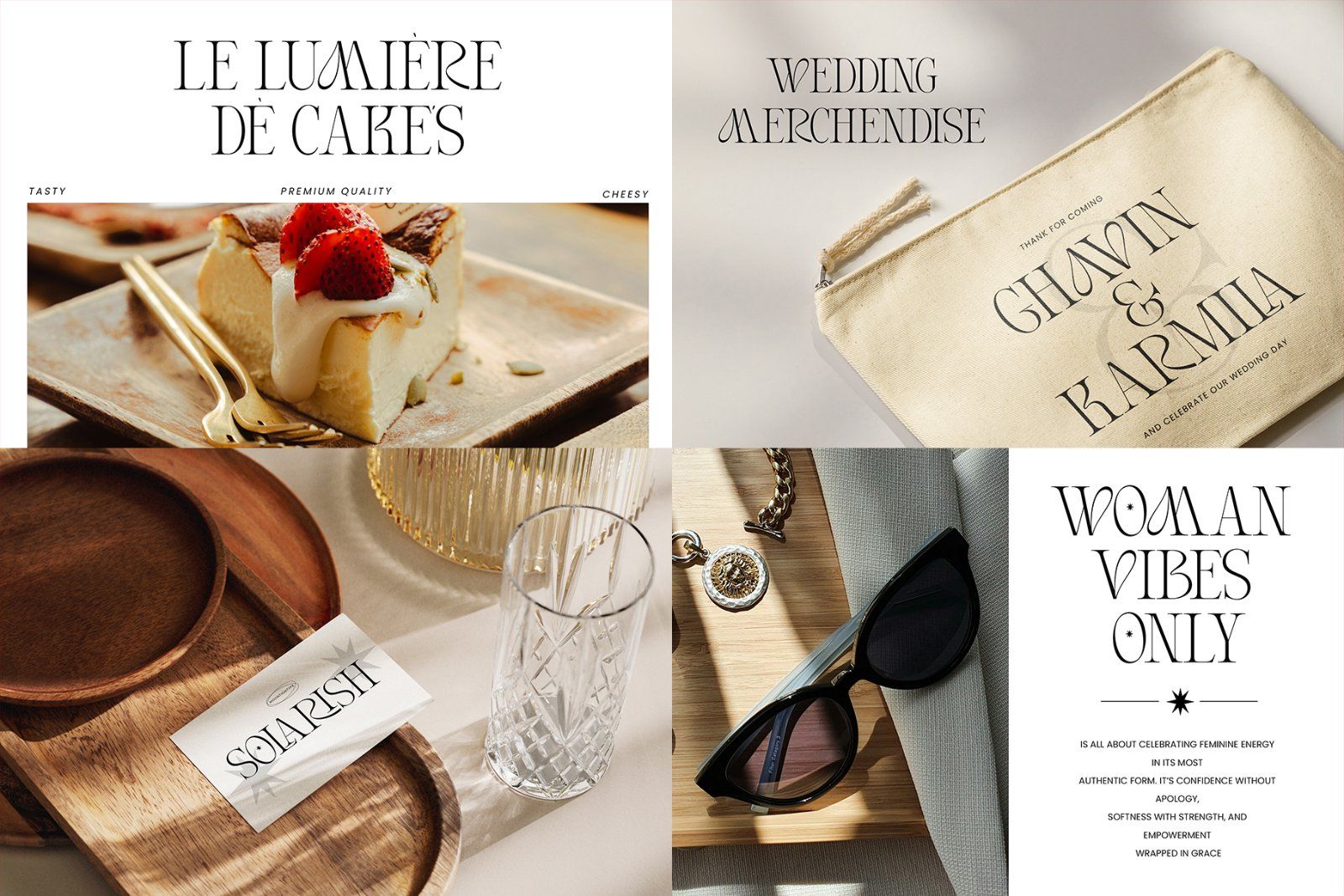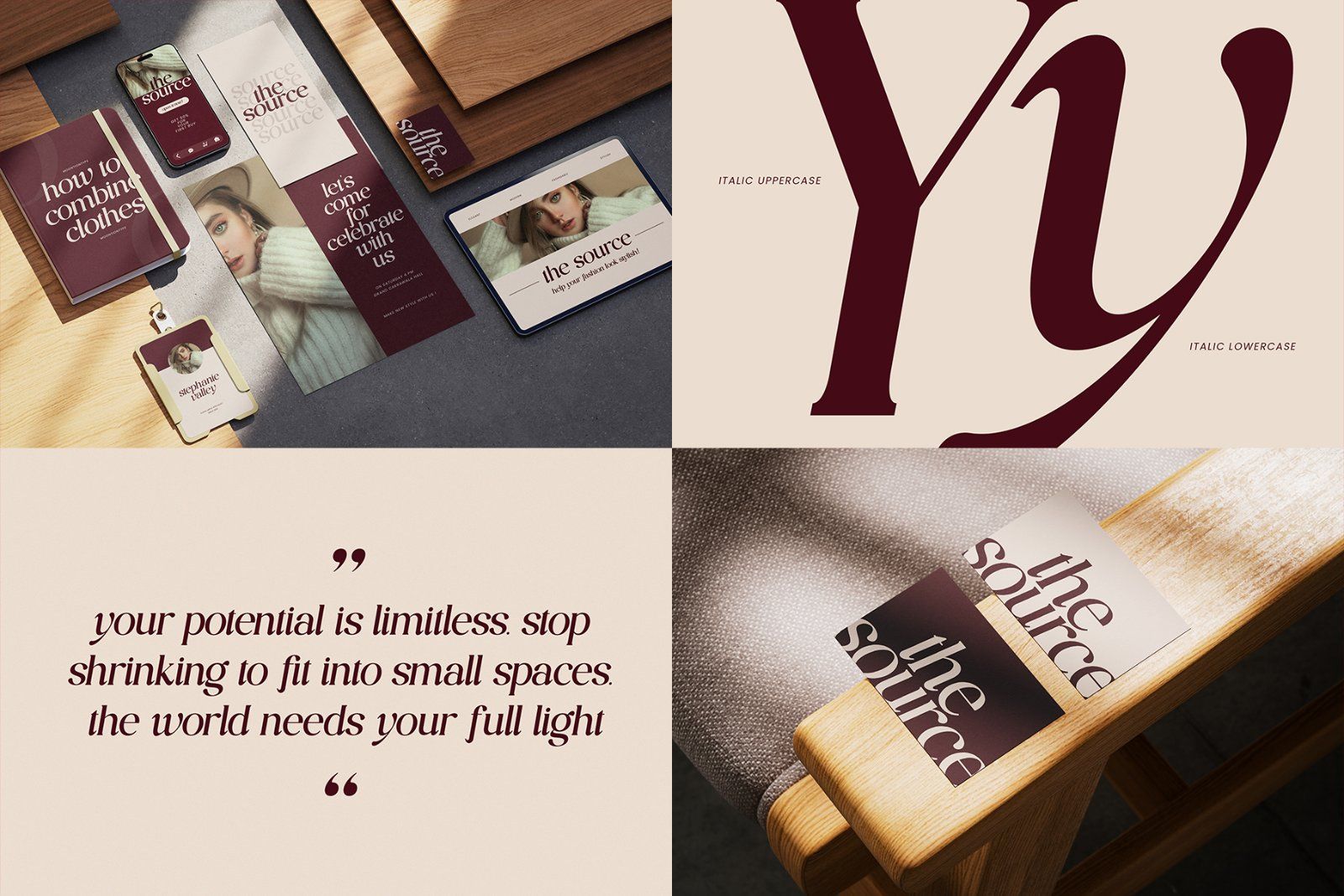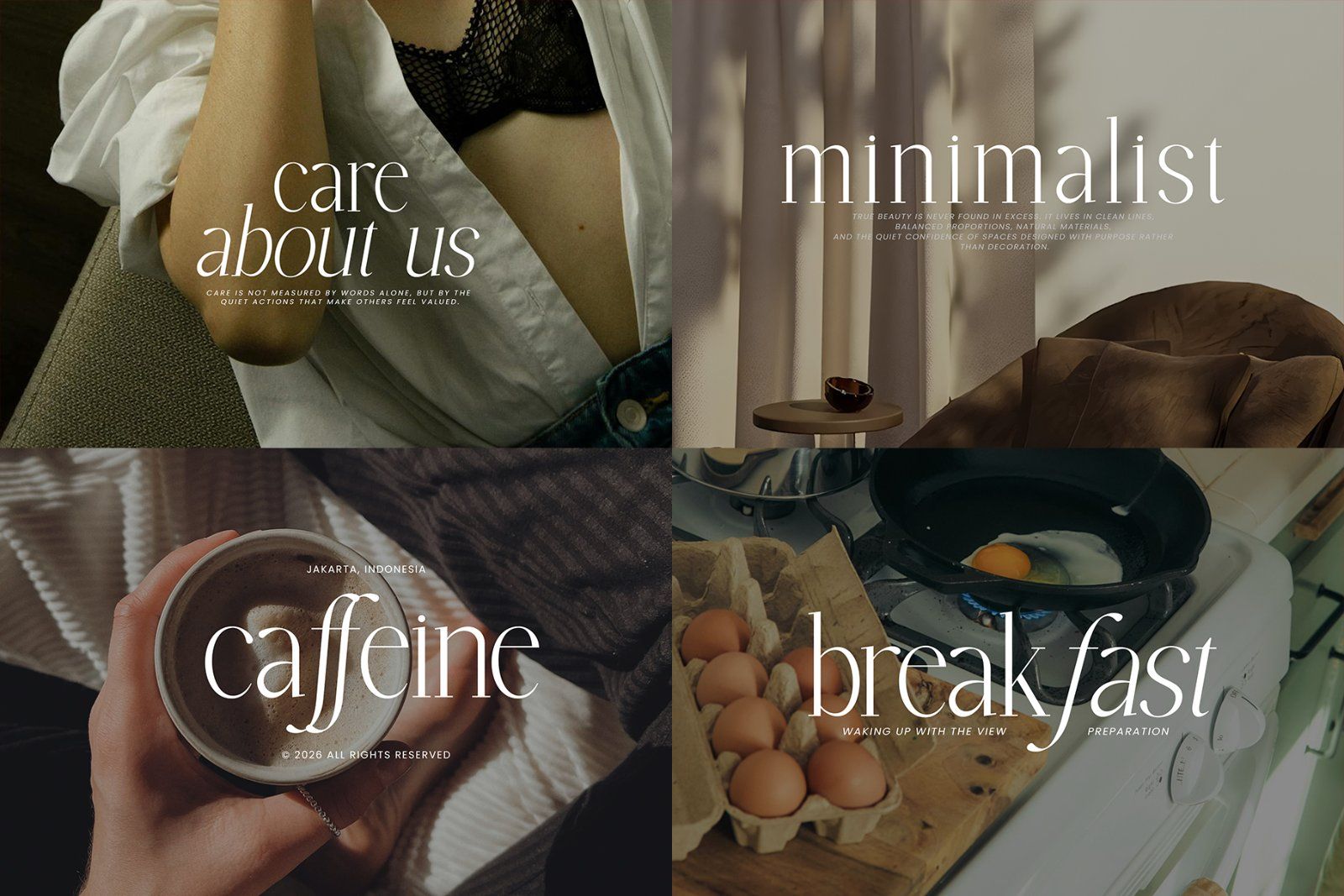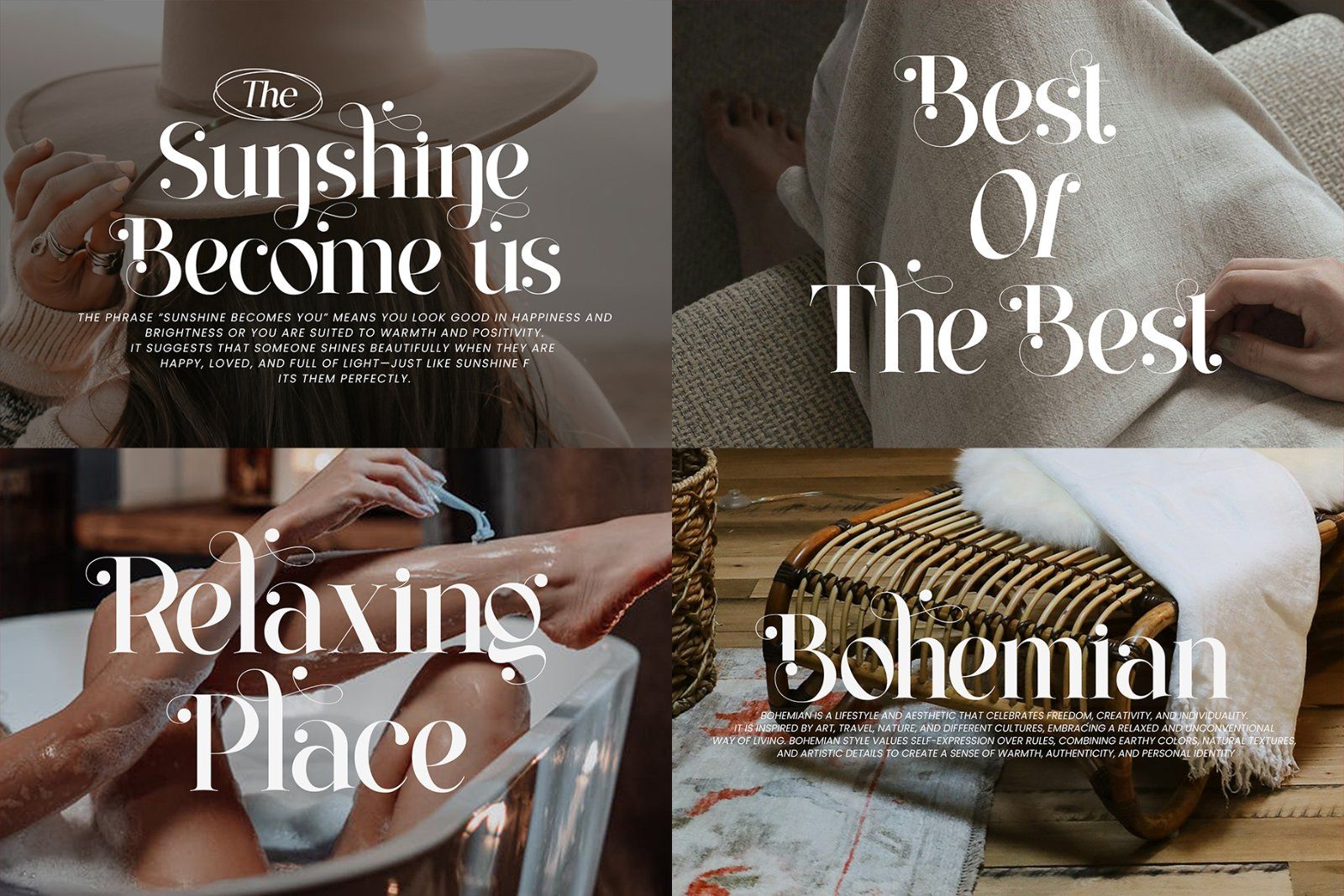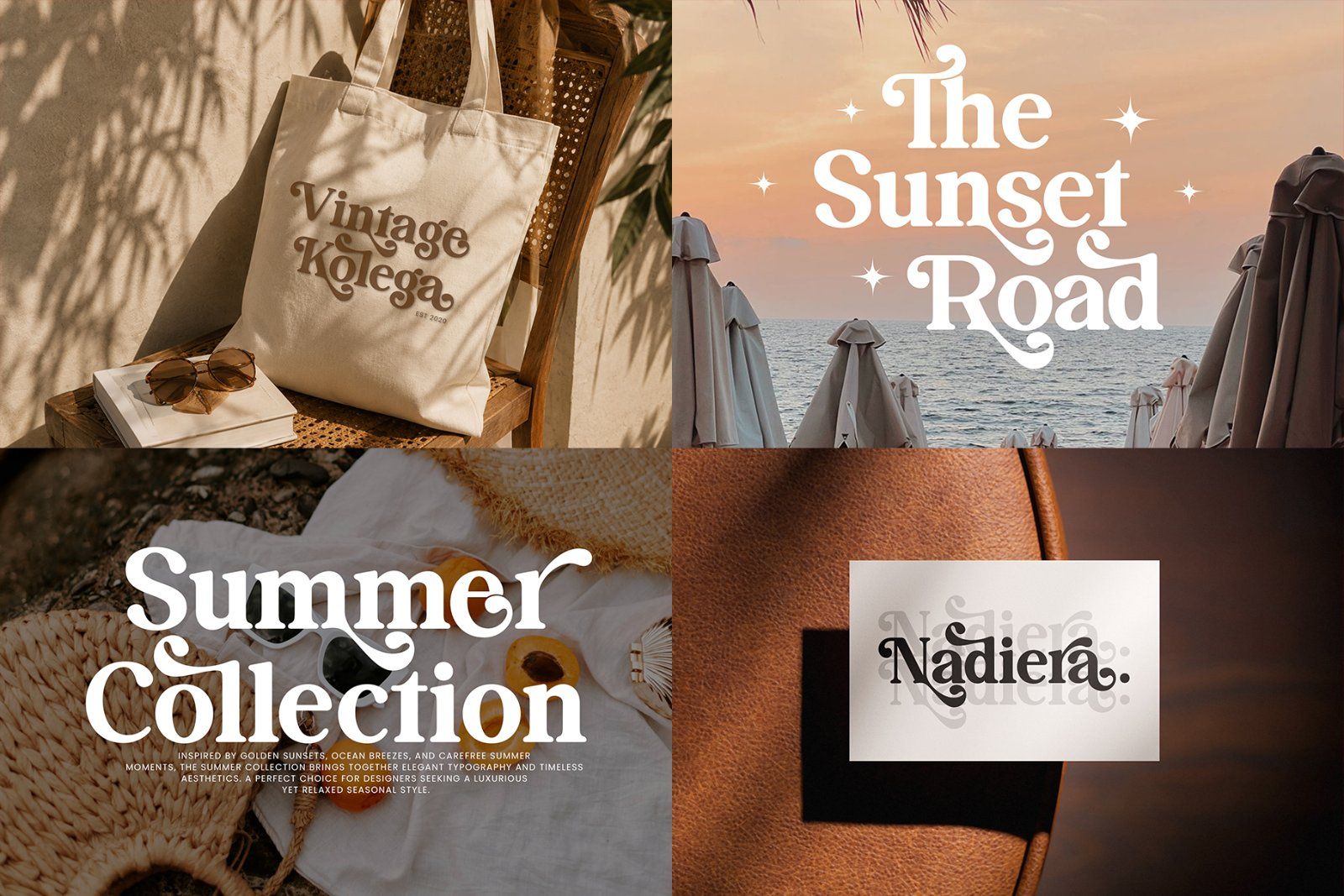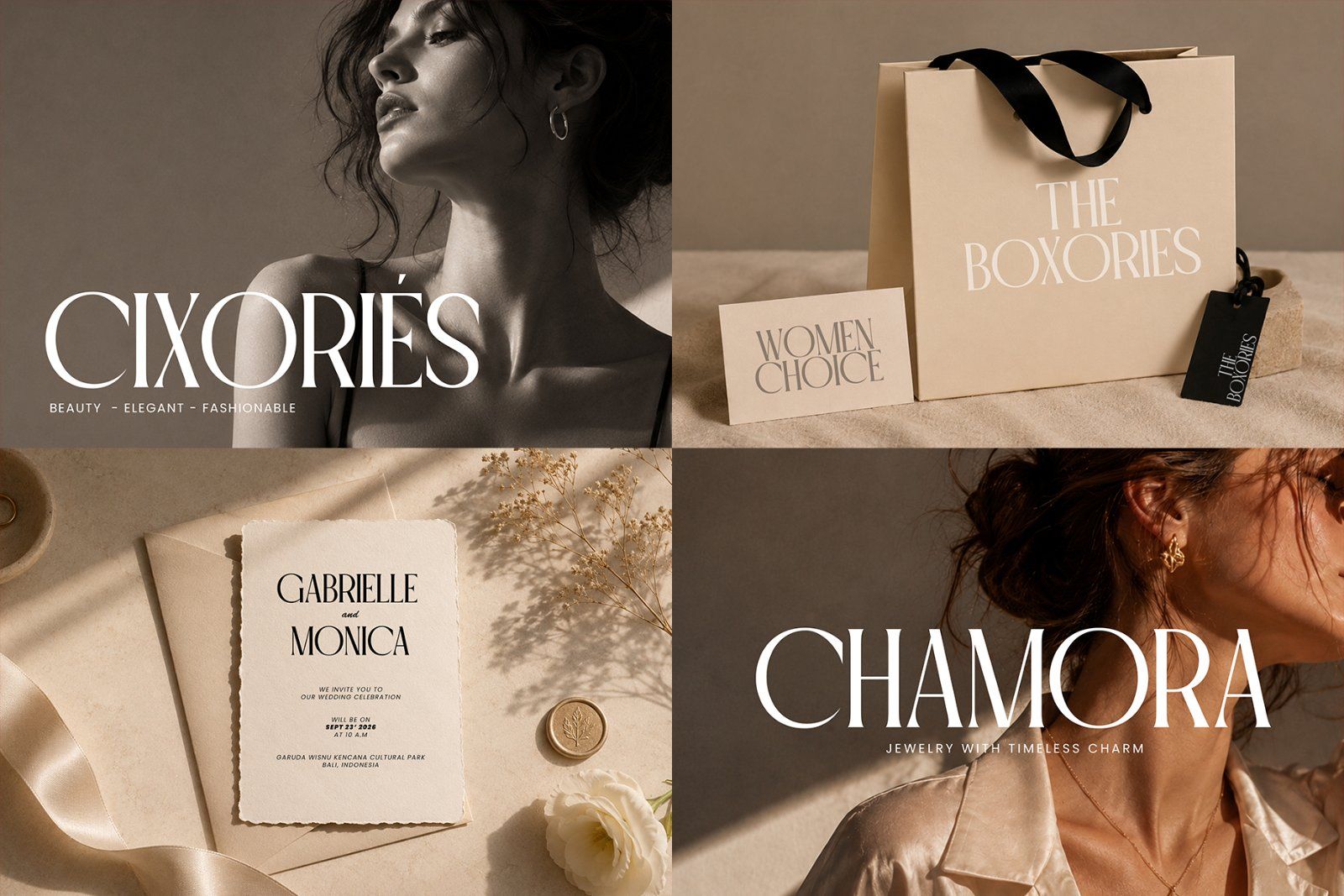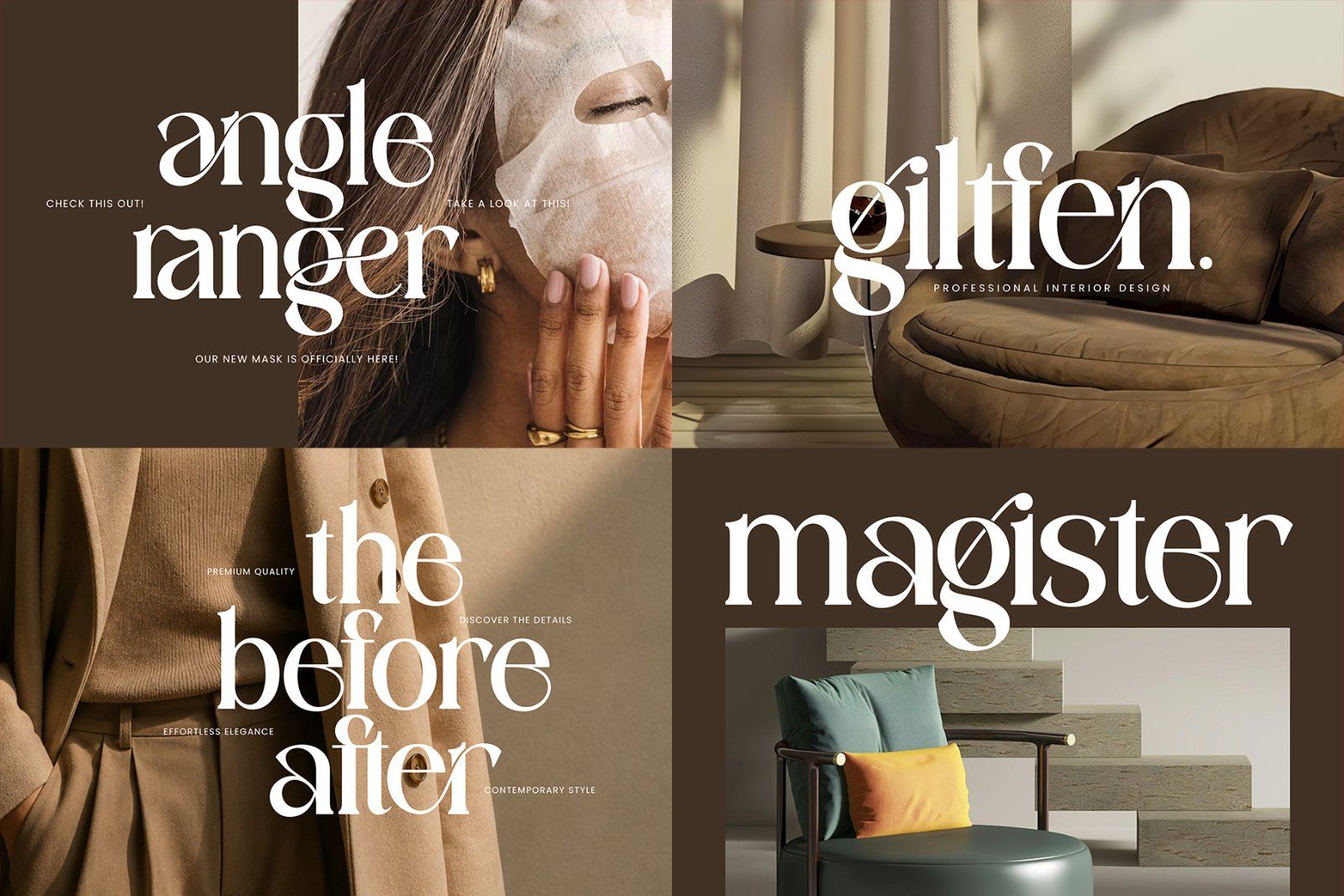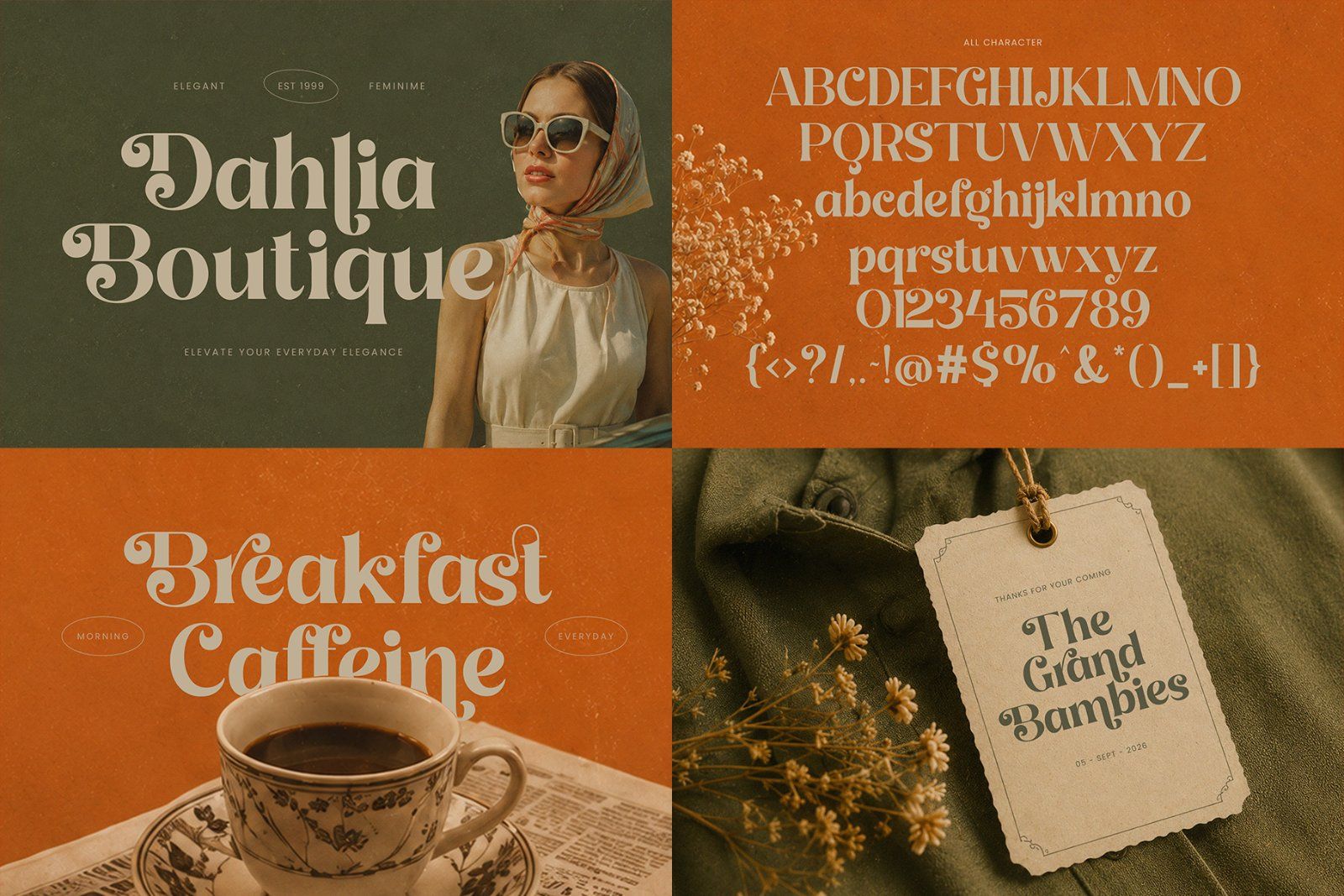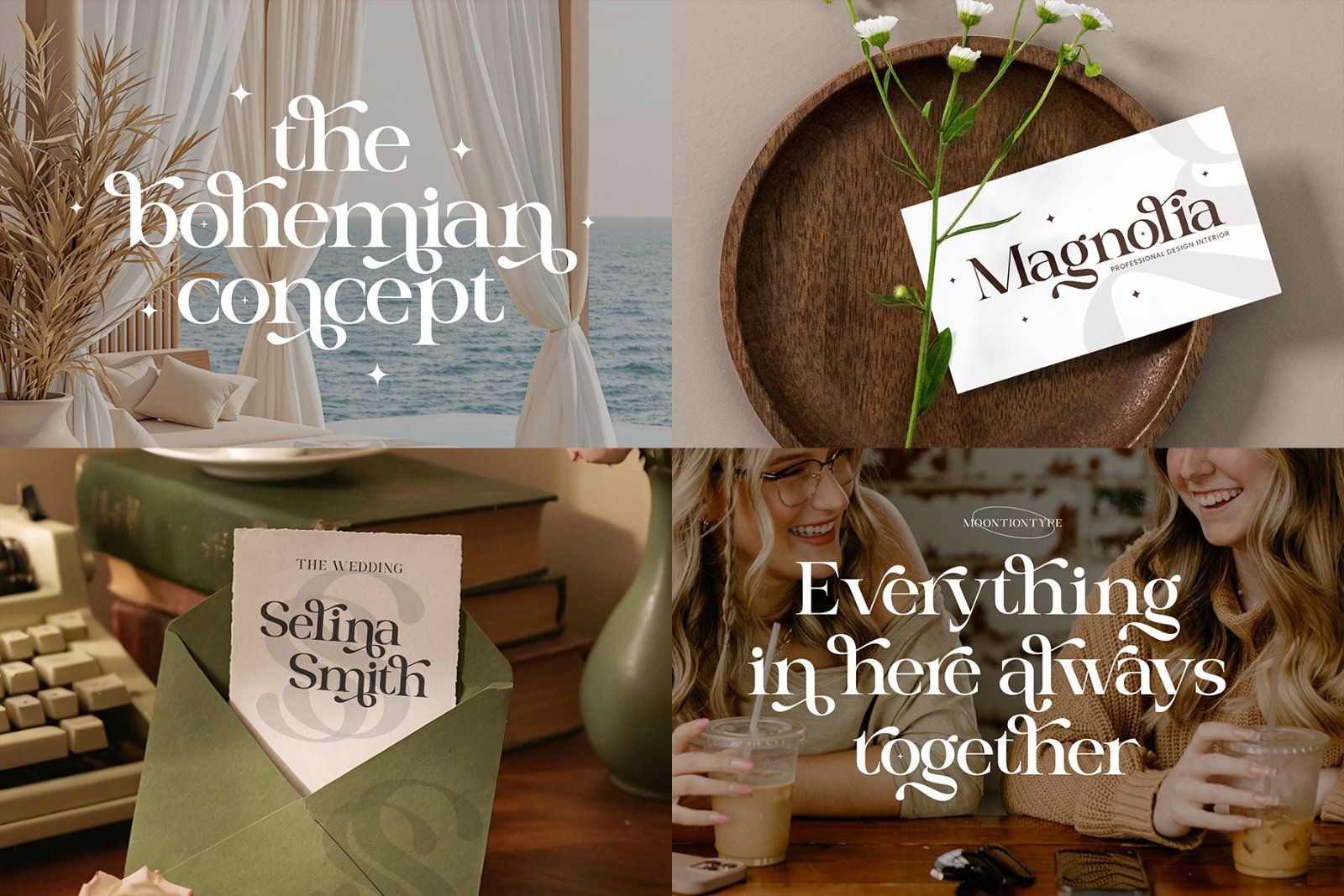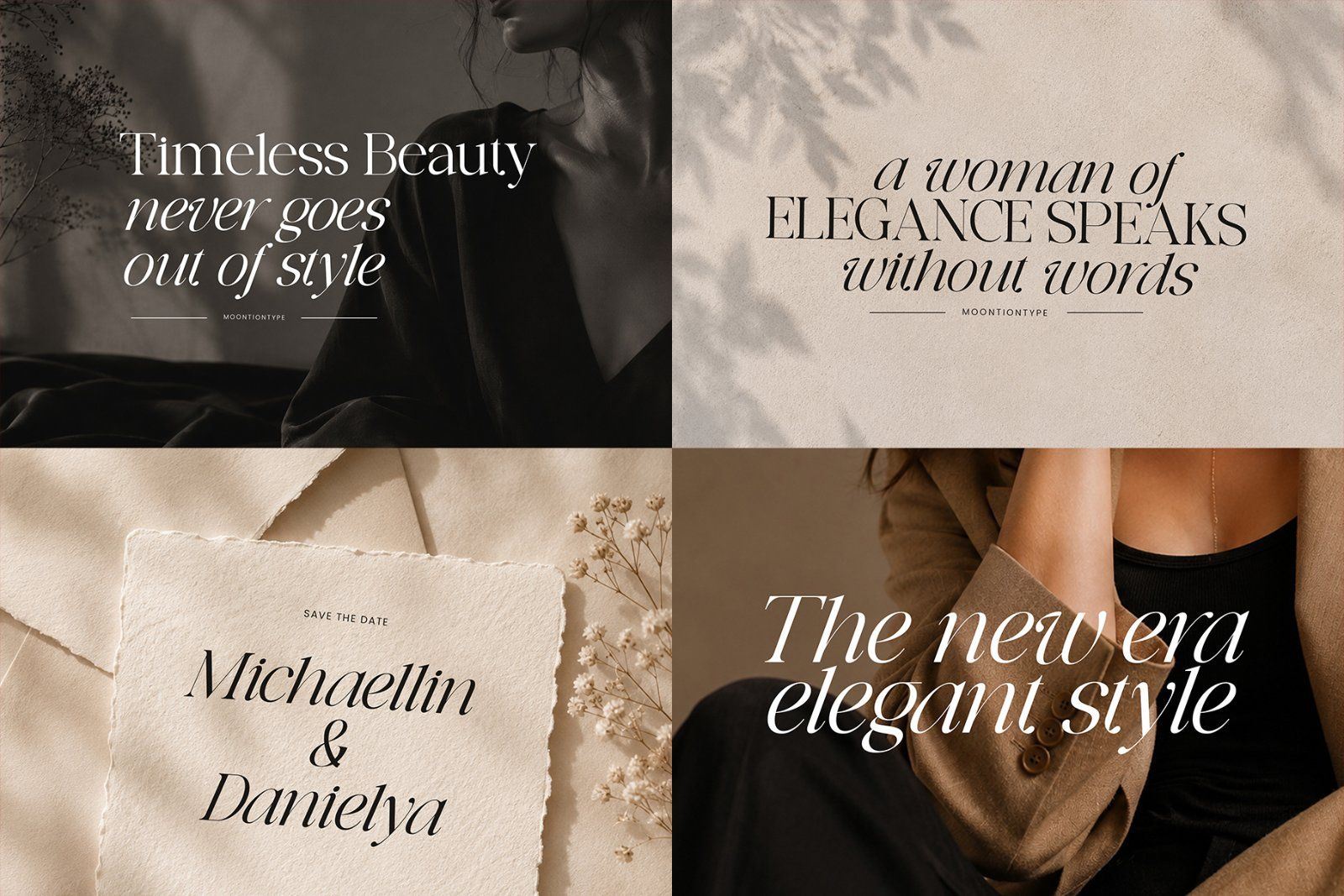
10 SERIF FONT BUNDLE — Elegant, Modern & Timeless
Elevate your creative projects with this carefully curated collection of 10 elegant serif fonts, designed for sophisticated and timeless visual identities.
This bundle combines a variety of modern, high-contrast, editorial, elegant, and stylish serif typefaces, giving you plenty of options for creating distinctive designs with a premium feel.
• 10 unique serif font
• Elegant & modern serif styles
FONT NAMES INCLUDED :
• Black Miracle
• Richmond Grovelyn
• Dream Morish
• The Sanchez Monthly
• Alforine
• Cielore
• Bilgist
• Grand Bambies
• Melnora
• Agifter